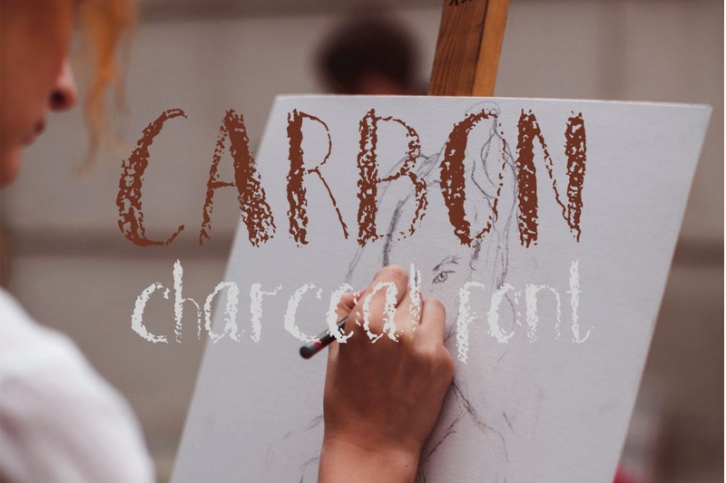
Artistic font made by hand. Textured font.
Drawn with charcoal pencil on watercolor paper.
Imitates the emphasis of the artist.
Gentle, real, with a story.